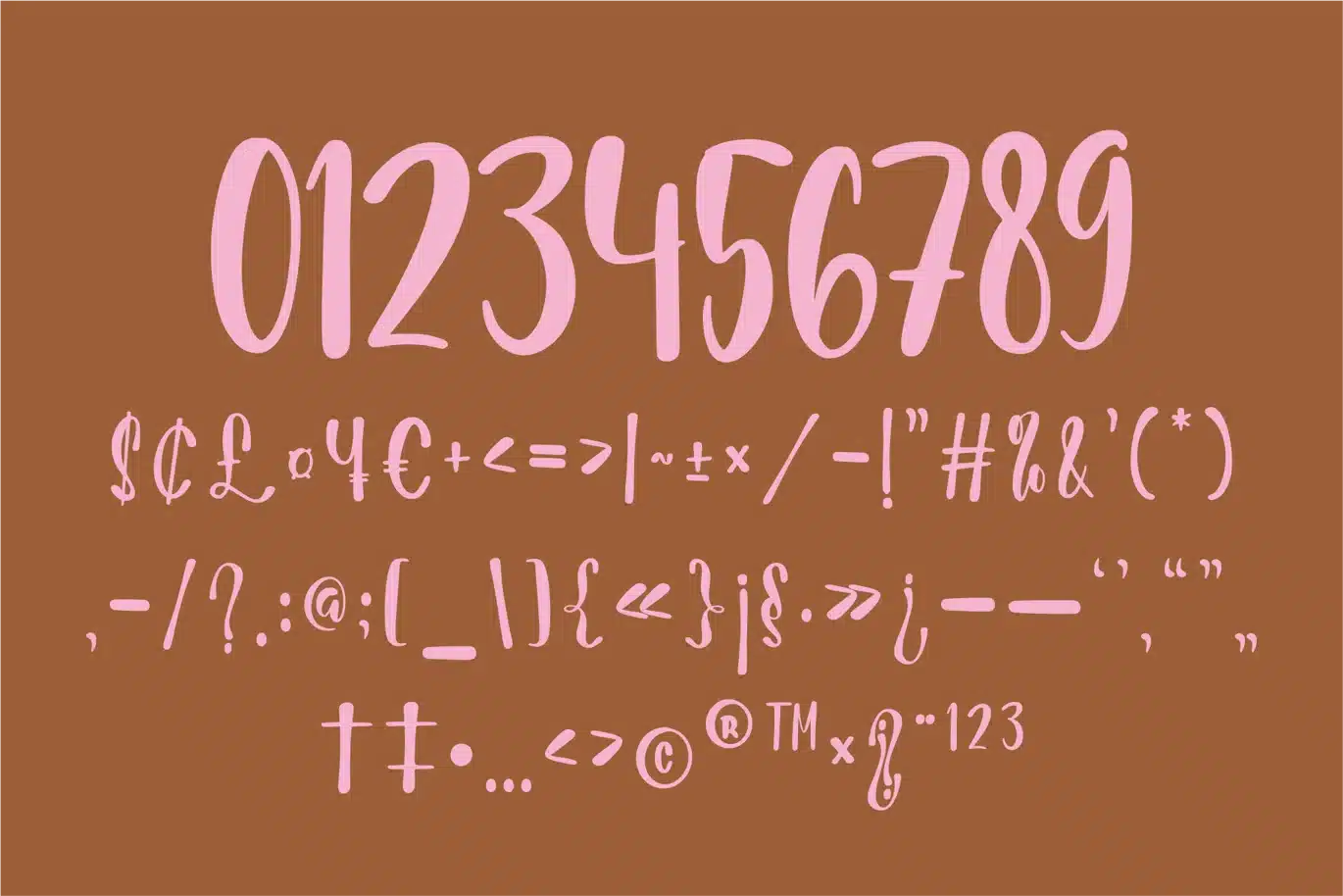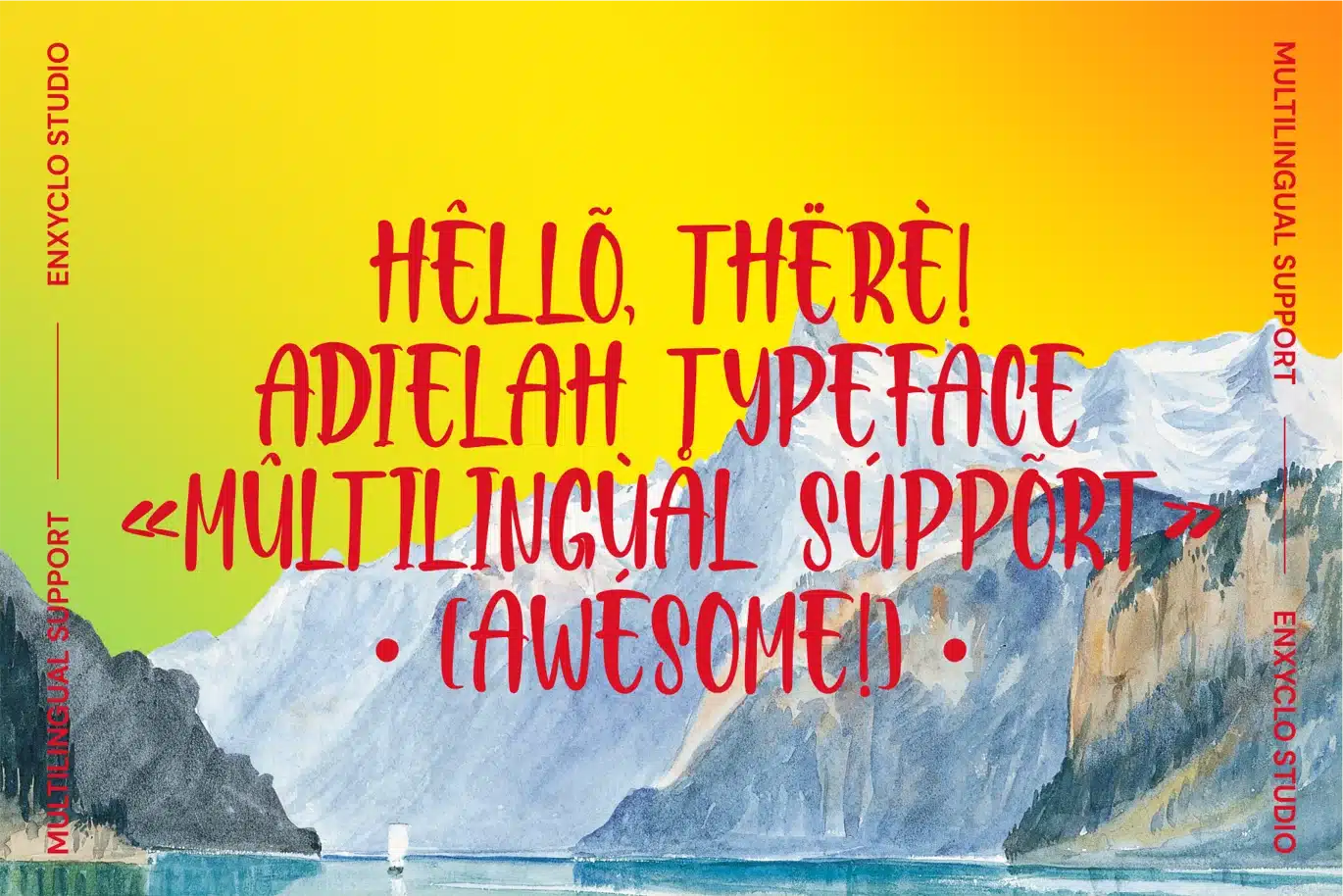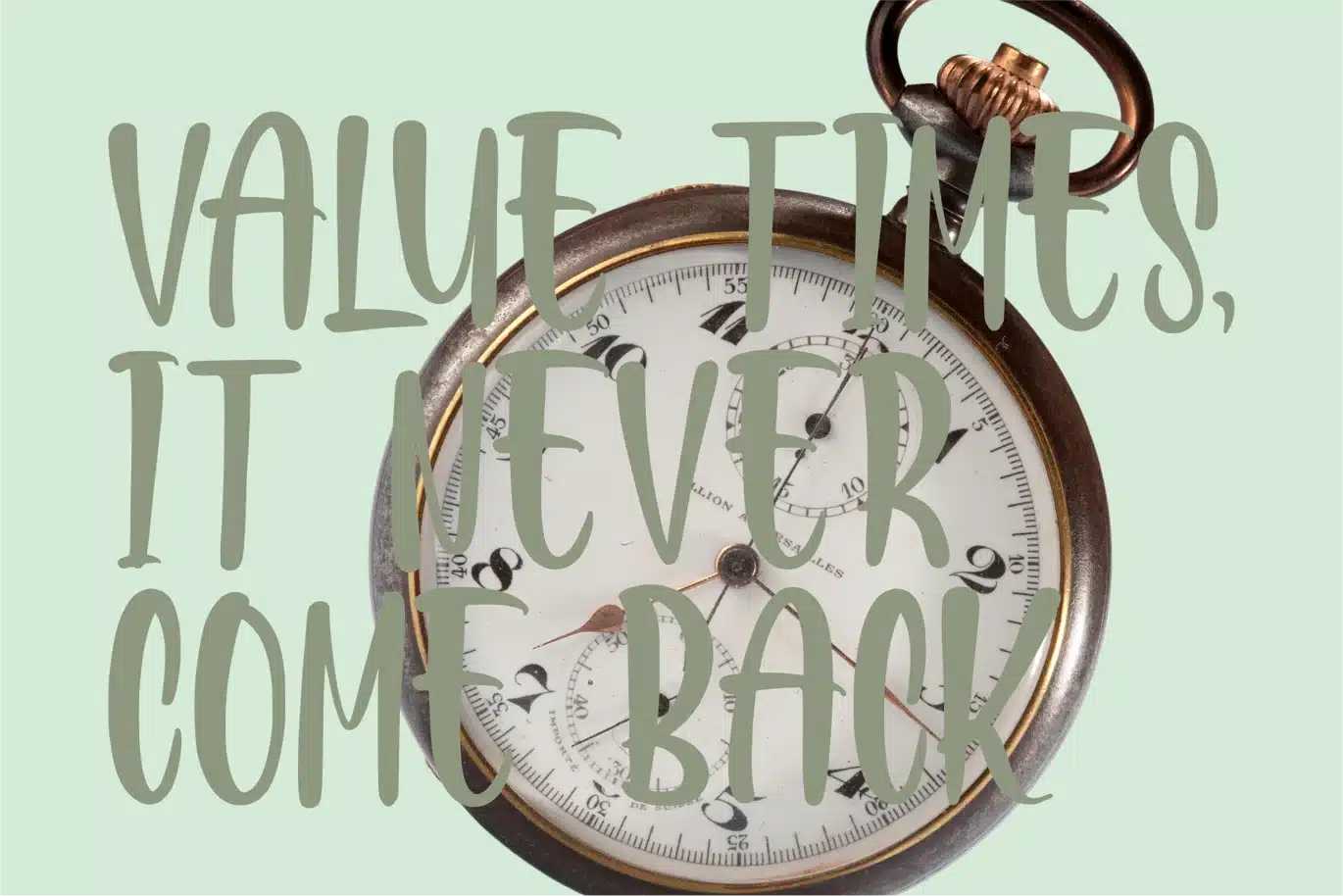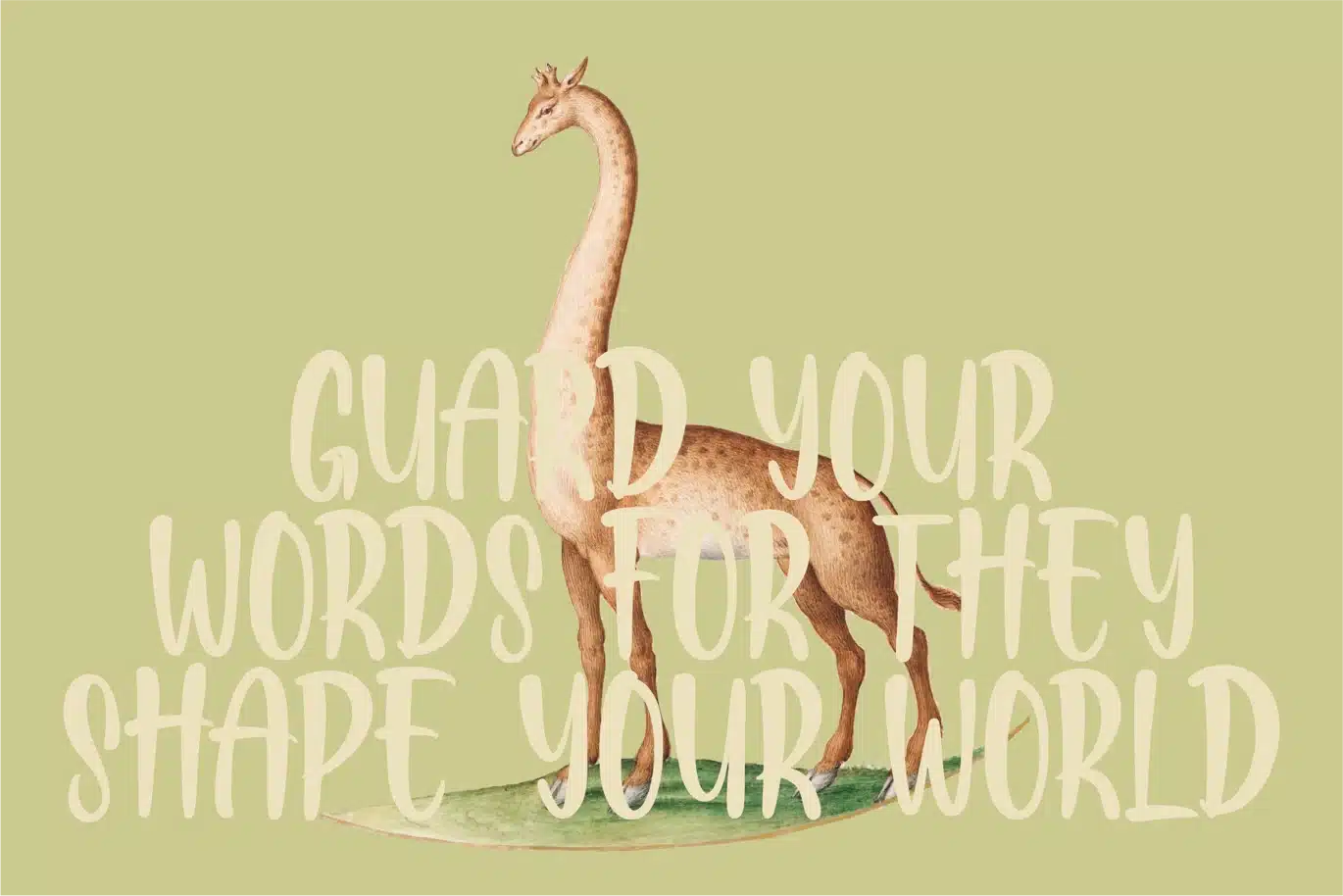
Adielah – Handwritten Modern Logo Font
Adielah – Expressive Handwritten Font by Enxyclo Studio
Discover the charm of authentic handwriting with Adielah, an expressive and playful handwritten typeface designed for versatility and creativity. Crafted by Enxyclo Studio, Adielah brings a warm, natural look that instantly adds personality and originality to your design projects.
Features
- Handcrafted handwritten style with a smooth and organic flow
- Includes uppercase, lowercase, numerals, punctuation, and symbols for complete typographic flexibility
- Supports multiple languages with extensive multilingual glyphs
- Special ligatures with unique style
- Contains 388 unique glyphs including ligatures and alternate characters for dynamic typography
- Perfectly balanced letterforms ensure readability with a friendly touch